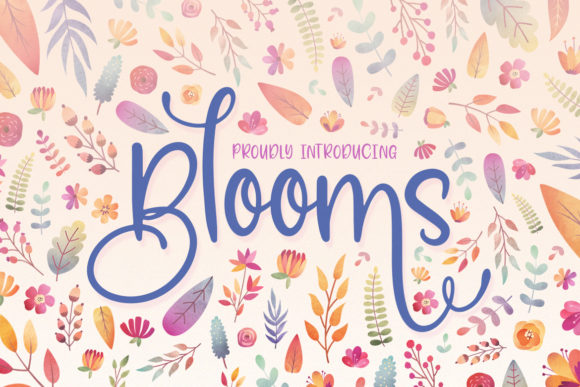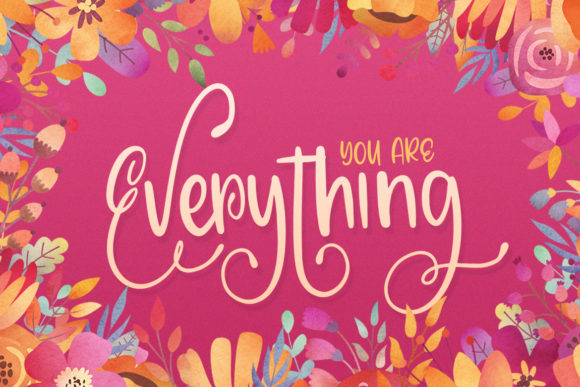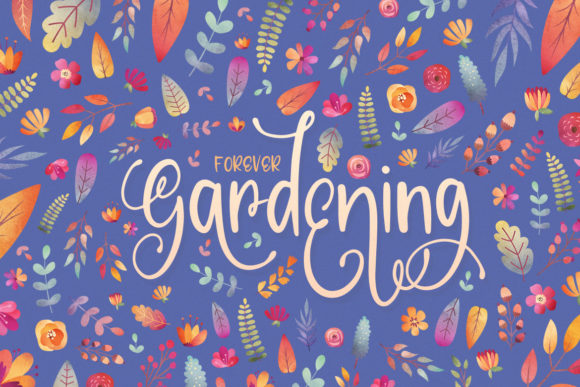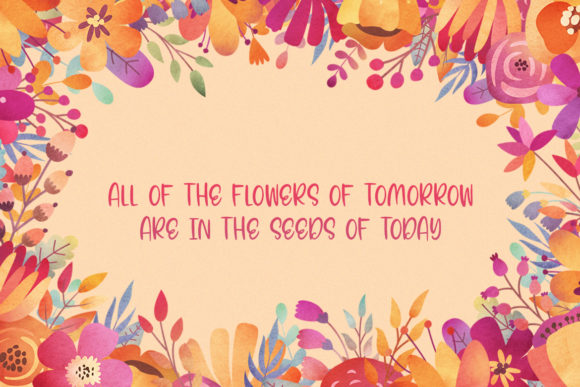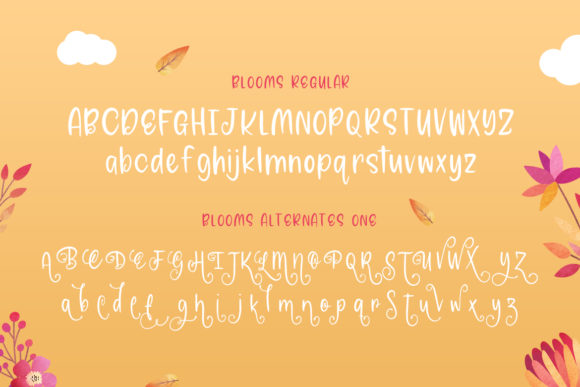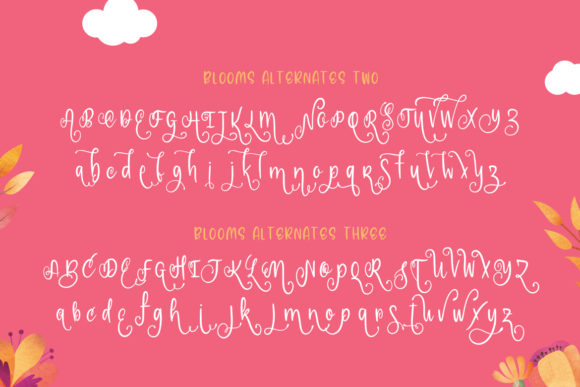
Blooms Font
About Blooms Font
Blooms is a sweet and joyful handwritten font. It can be used for various purposes such as logos, wedding invitations, headings, t-shirts, letterhead, signage, labels, news, posters, badges and so much more.